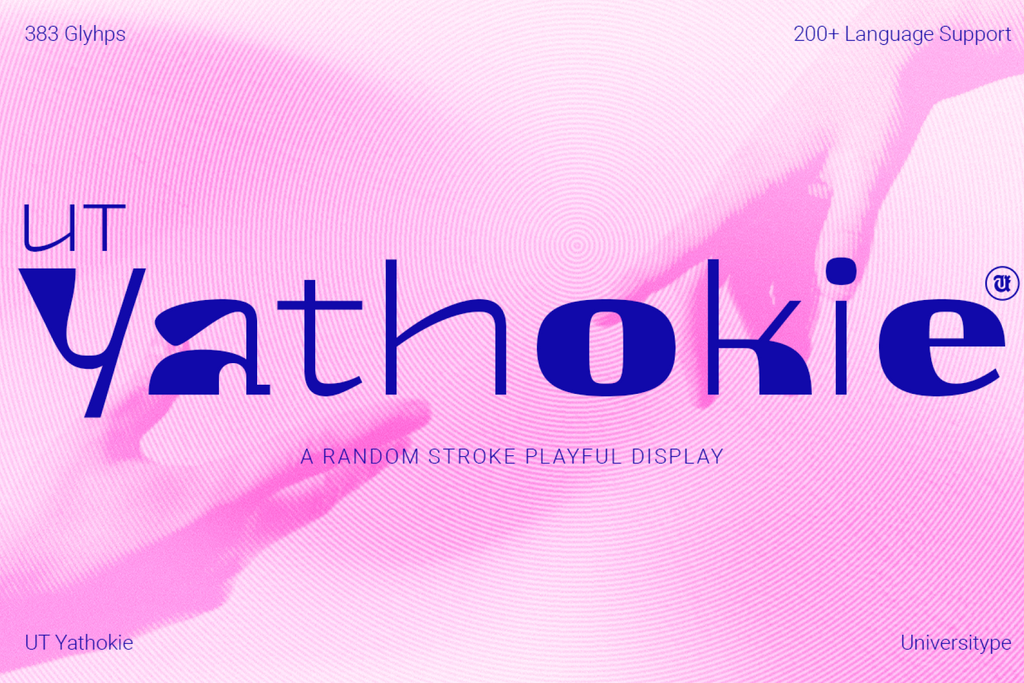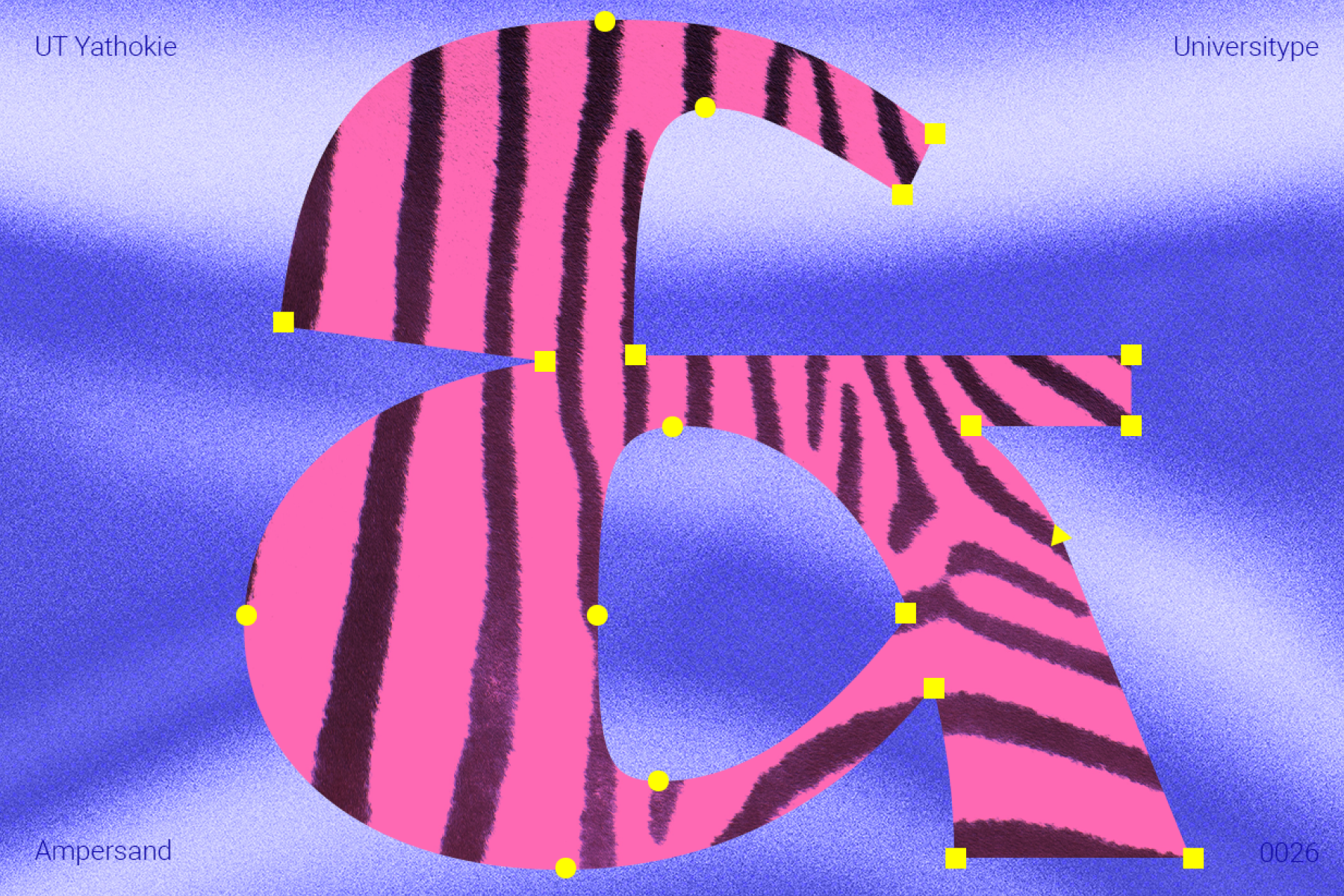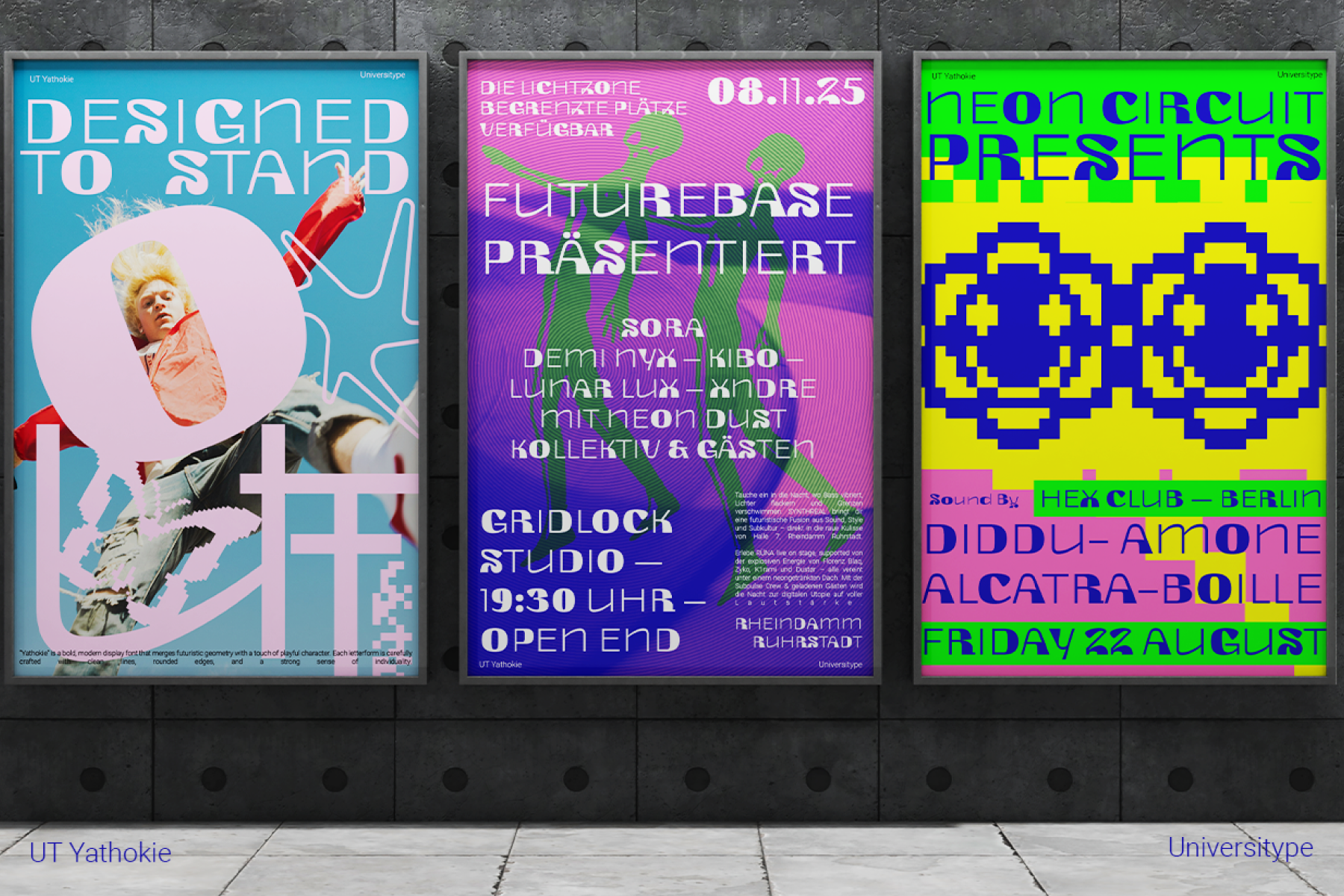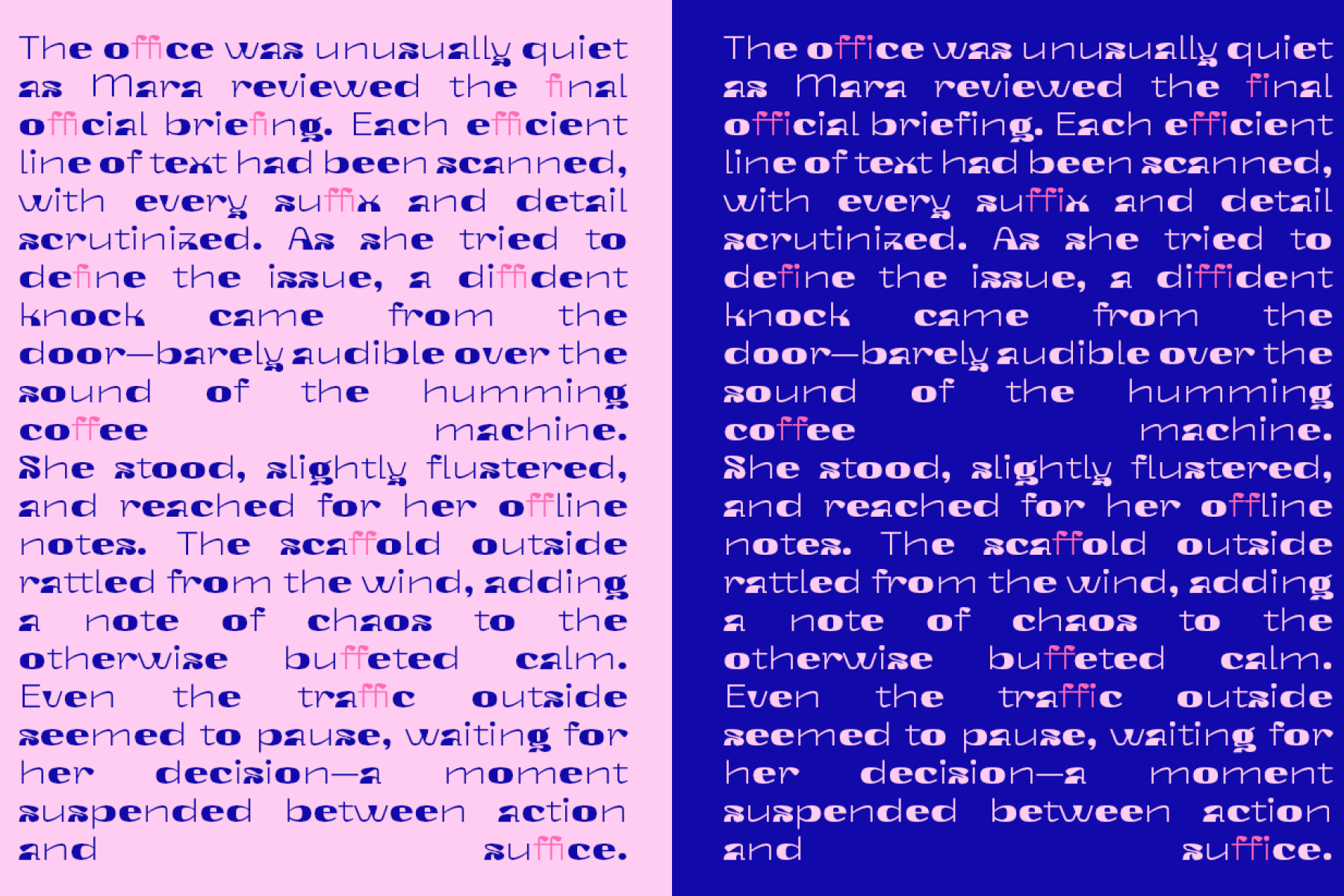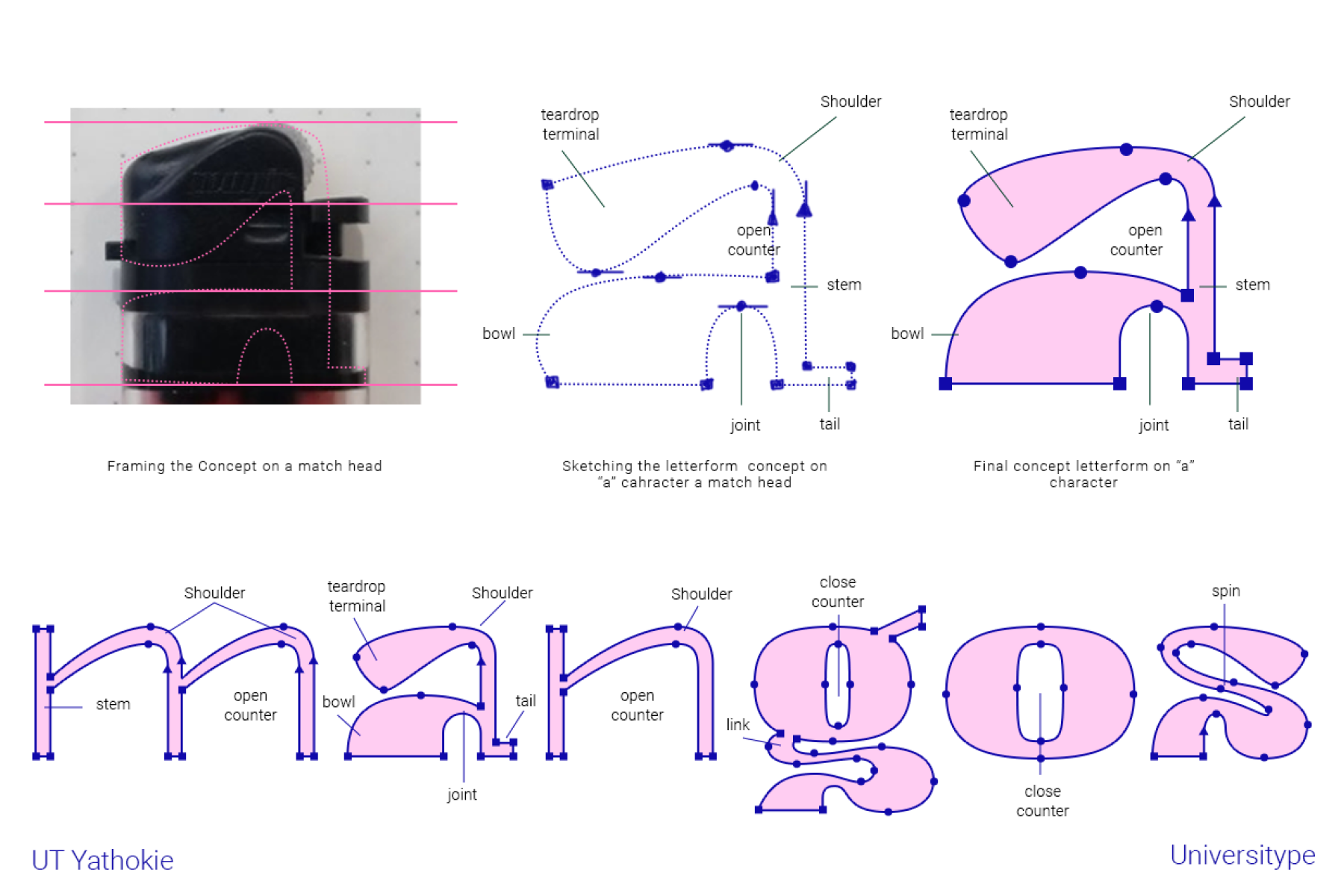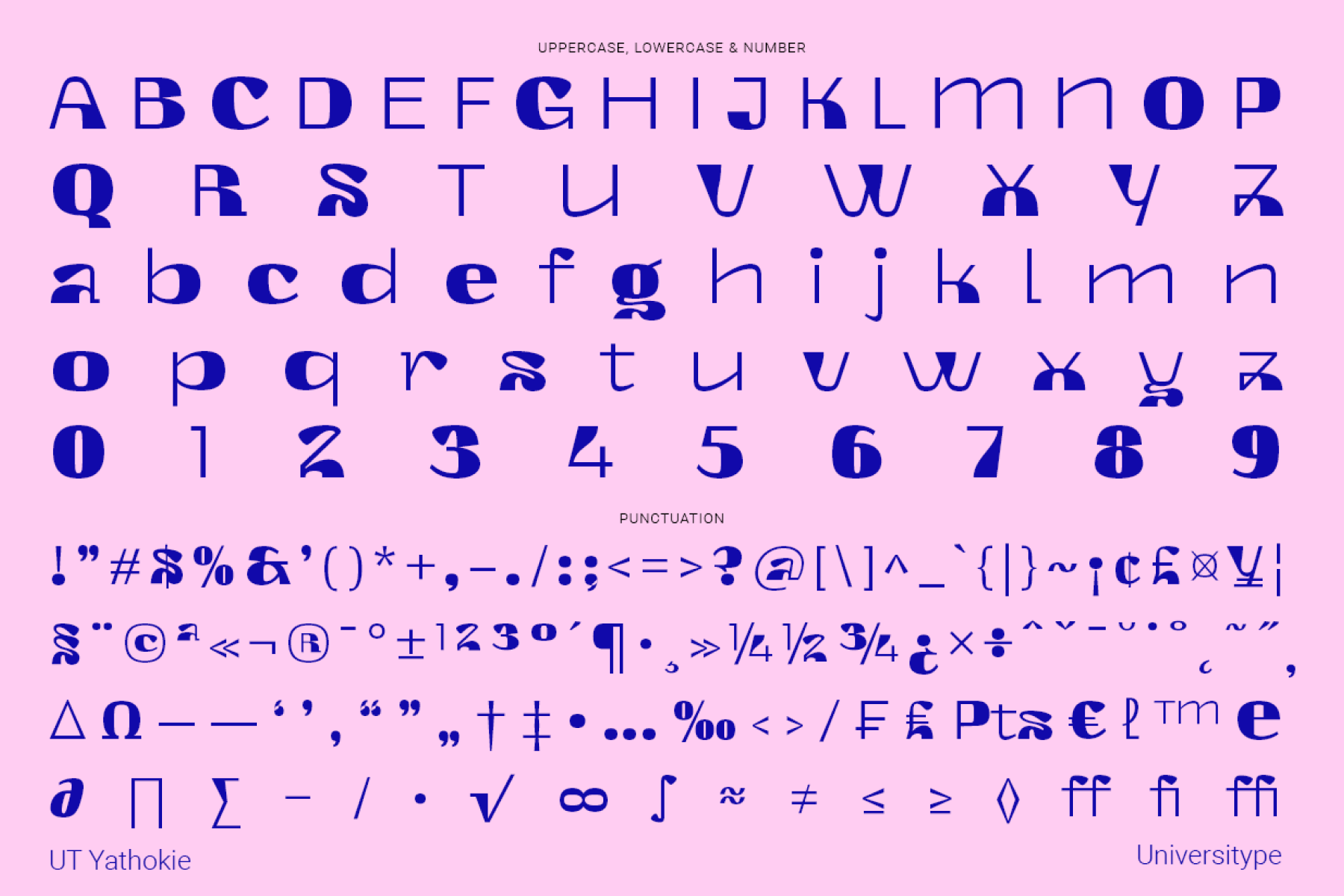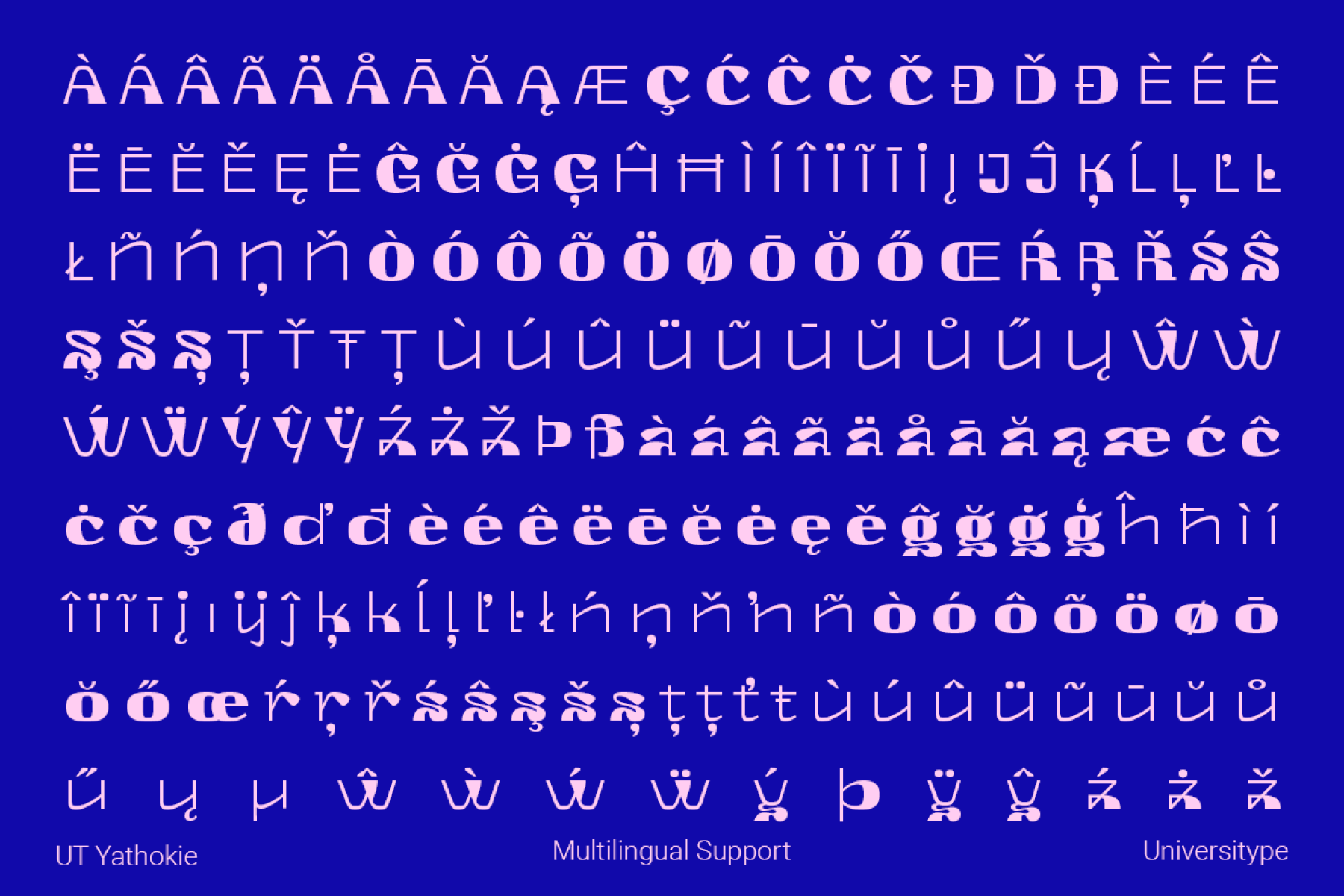
UT Yathokie from Universitype Foundry
UT Yathokie doesn’t follow rules, because rules are boring. It’s a quirky, unpredictable display font that brings a jolt of personality to whatever it touches. Think techno-pop with a sketchbook soul. This typeface thrives in the space between structure and spontaneity, clean on one edge, full of surprise on the other.
From brand identities to experimental posters, Yathokie is here to turn heads and keep them tilted just a little longer. It plays with rhythm, breaks up patterns, and still lands with clarity.
Target Audience
Graphic designers, art directors, trend-forward brands, creative coders, type nerds, editorial rebels, music labels, visual artists—anyone who loves fonts that don’t behave.
Key Features
- 383 carefully drawn glyphs
- Covers 200+ Latin-based languages
- Uppercase, lowercase, numerals, punctuation, symbols
- Alternating stroke weights for dynamic texture
- Rounded edges, geometric quirks, and experimental joints
- Designed for display use: posters, branding, logotypes, album covers, and motion
Inspiration Behind the Design
UT Yathokie began as a spark—literally. The initial idea came from the head of a matchstick: that soft, rounded tip with just enough tension and potential to ignite something bigger. That shape—simple yet loaded with energy—became the seed of this entire typeface.
From there, the design unfolded through playful exploration. The teardrop form from the match head became a motif, echoed across letter terminals, curves, and cuts. It’s present in subtle dips in the lowercase “a,” in the stretched leg of the “k,” and in the looping, unexpected turns of characters like “g” or “y.” The match-head influence morphed into a visual language of its own—sometimes obvious, sometimes buried in the rhythm of the type.
But it didn’t stop with form. Yathokie also channels the vibe of handmade lettering from underground zines, the energy of experimental typography in music culture, and the chaos of trying to design something when you don’t overthink it. It embraces randomness—not the kind that feels sloppy, but the kind that feels alive. That’s why some strokes feel heavy, others thin. Some letters stretch tall, while others keep compact. It’s a dance between deliberate design and letting the font misbehave just enough.
It’s inspired by contradiction: geometric, yet off-kilter. Friendly, but intense. Structured, but never rigid. UT Yathokie is what happens when you light a match and let the design take the lead.
Usage Suggestions
- Eye-catching poster headlines
- Bold logotypes for fashion, tech, or music brands
- Album art or event graphics that need a strong voice
- Editorial layouts that need an expressive twist
- Type-led motion or kinetic typography projects
- Merchandise that wants to look unconventional